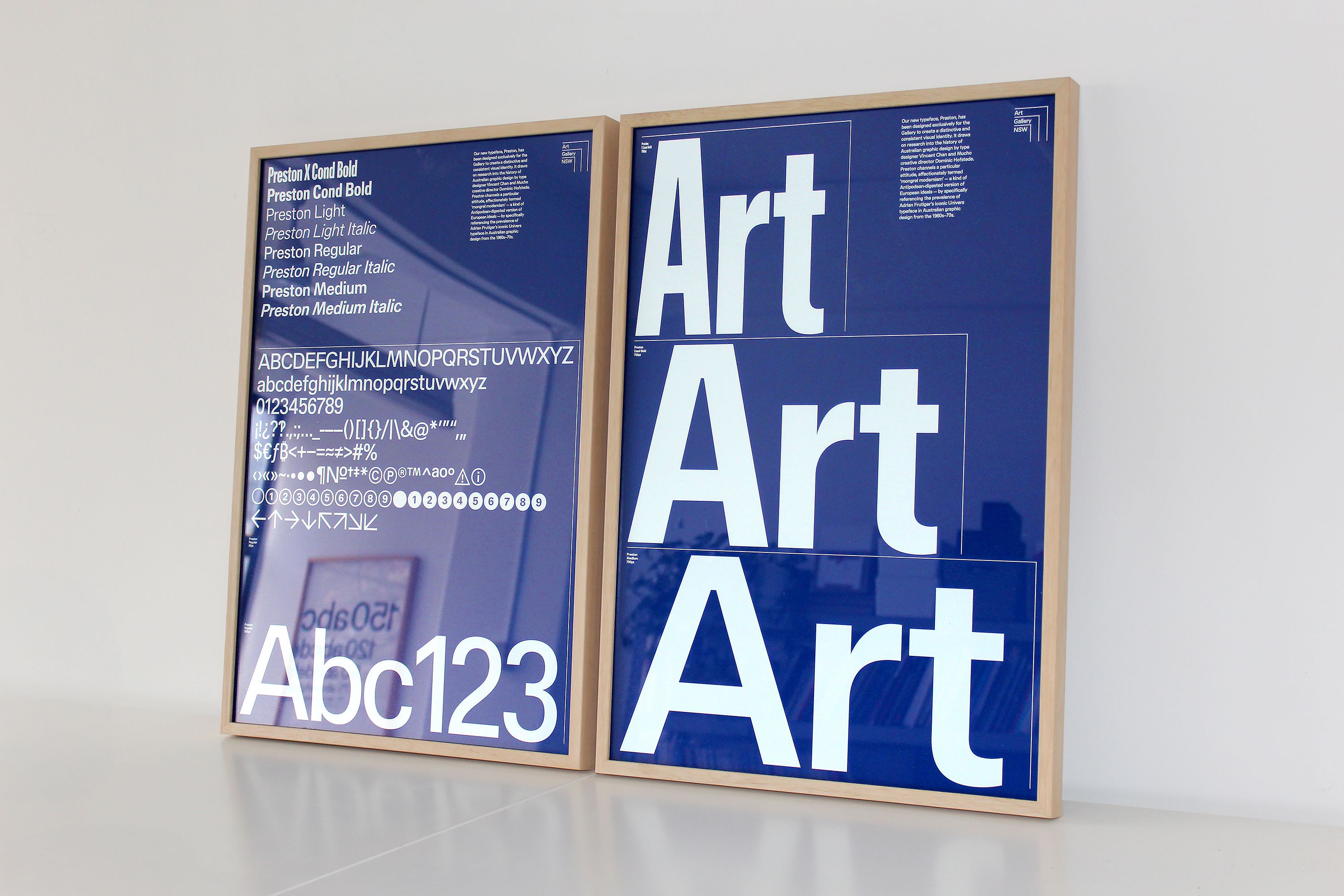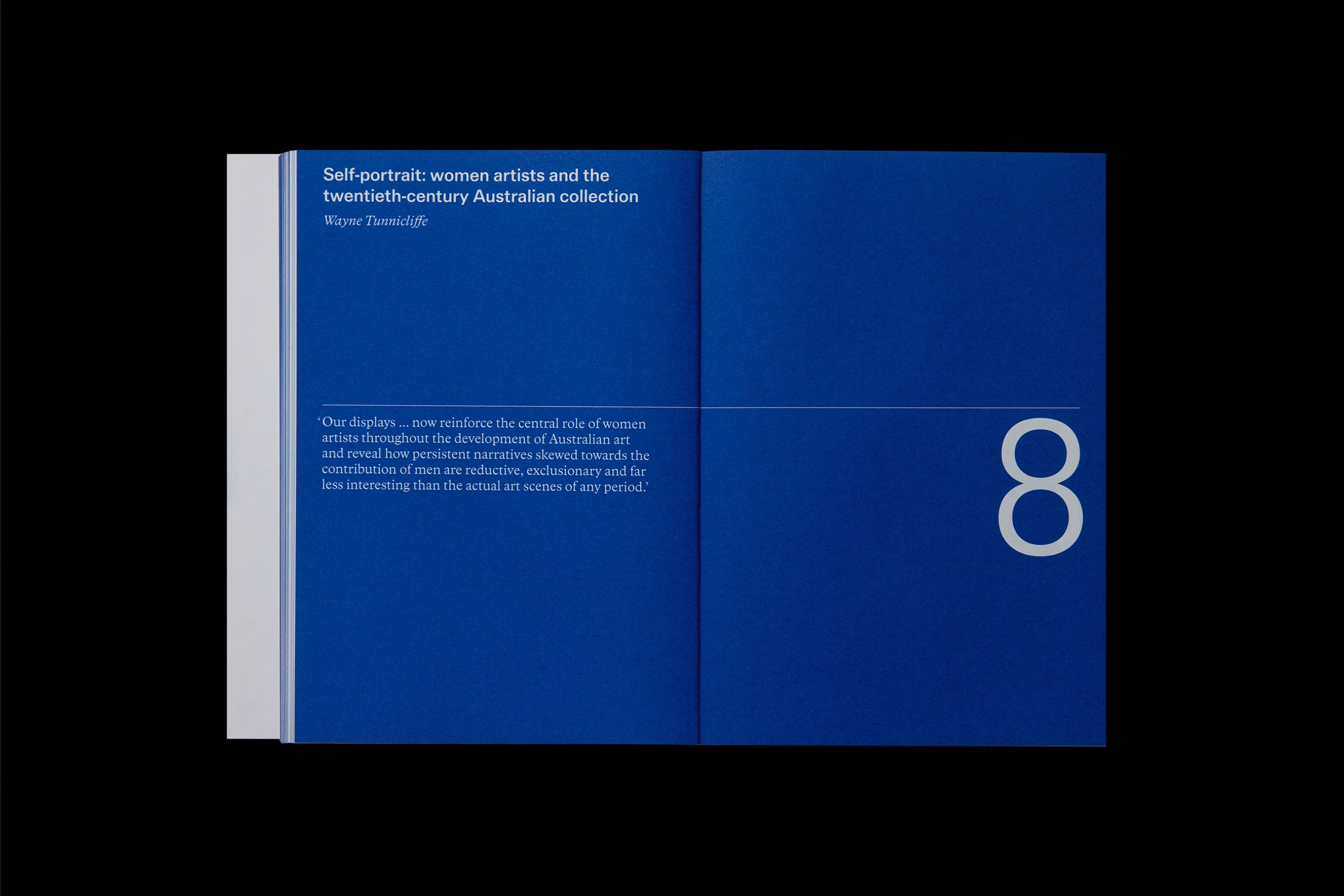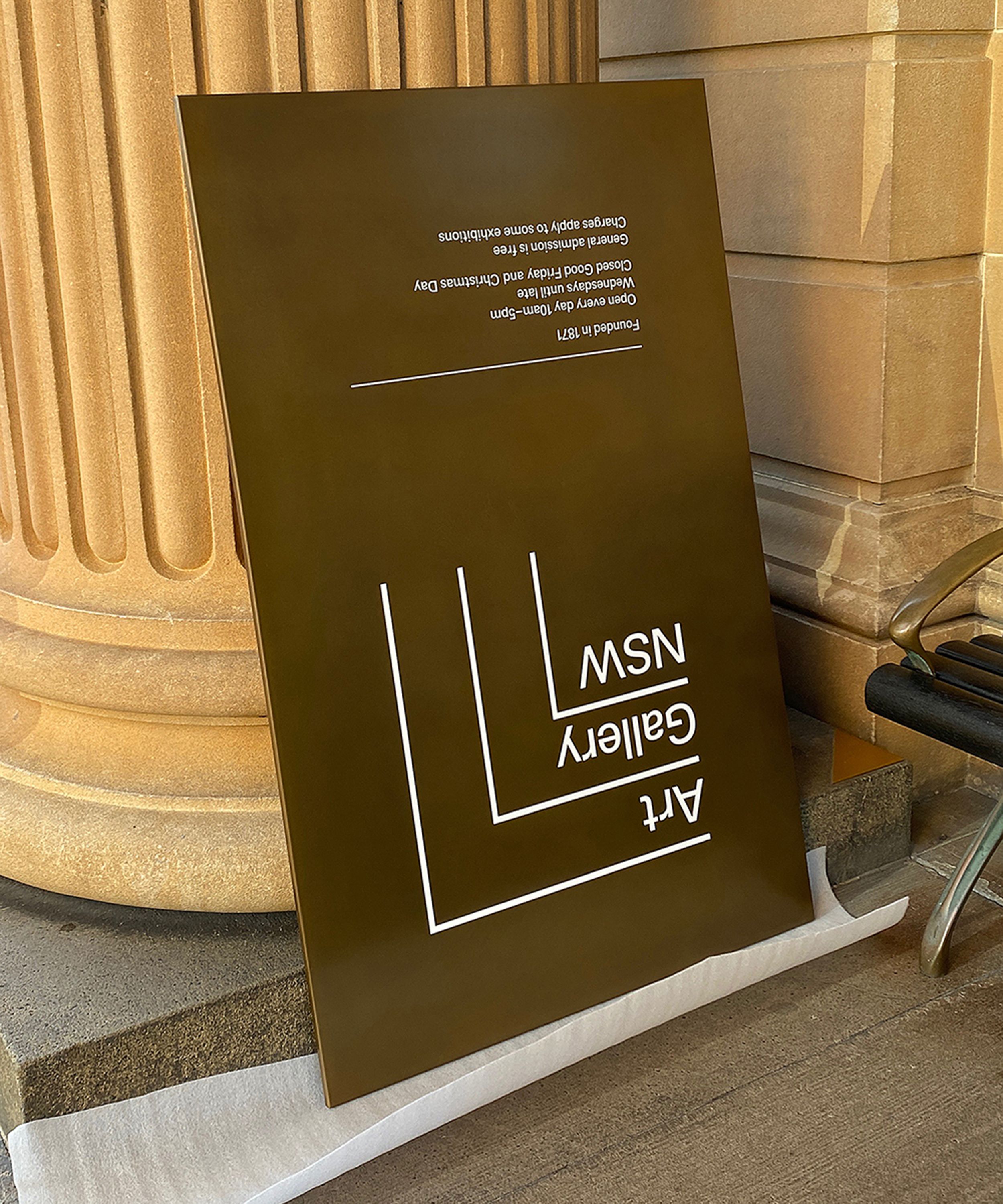
AGNSW, Preston type specimen.
AGNSW, SANAA in Sydney.
AGNSW, The Sydney Modern Project.
Art Gallery of NSW, entry plaque.
AGNSW, Preston type specimen.
Preston is a custom typeface designed in collaboration with Vincent Chan (Matter of Sorts) for the Art Gallery of NSW visual identity. Completed at Mucho with Jeremy Matthews, Luke Robertson and the AGNSW Creative Studio.